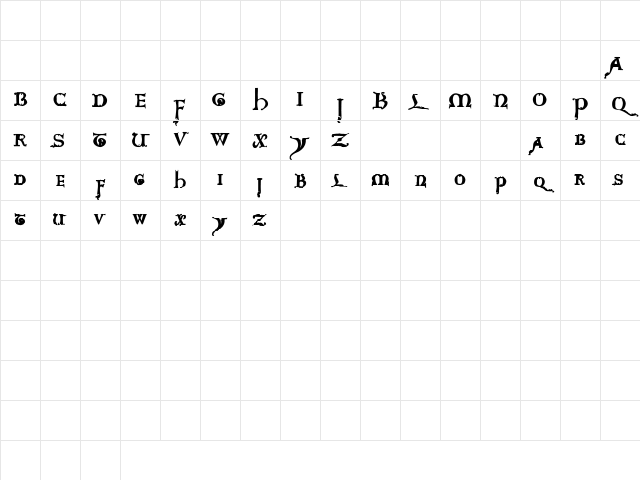
Questra Extra ST Regular
Design Context for Questra Extra ST
Questra Extra ST is a composed and adaptable typeface that performs quietly and consistently across a wide range of design contexts.
Pro Tip: Use Questra Extra ST in both headline and body roles to test its range before committing to a single application.